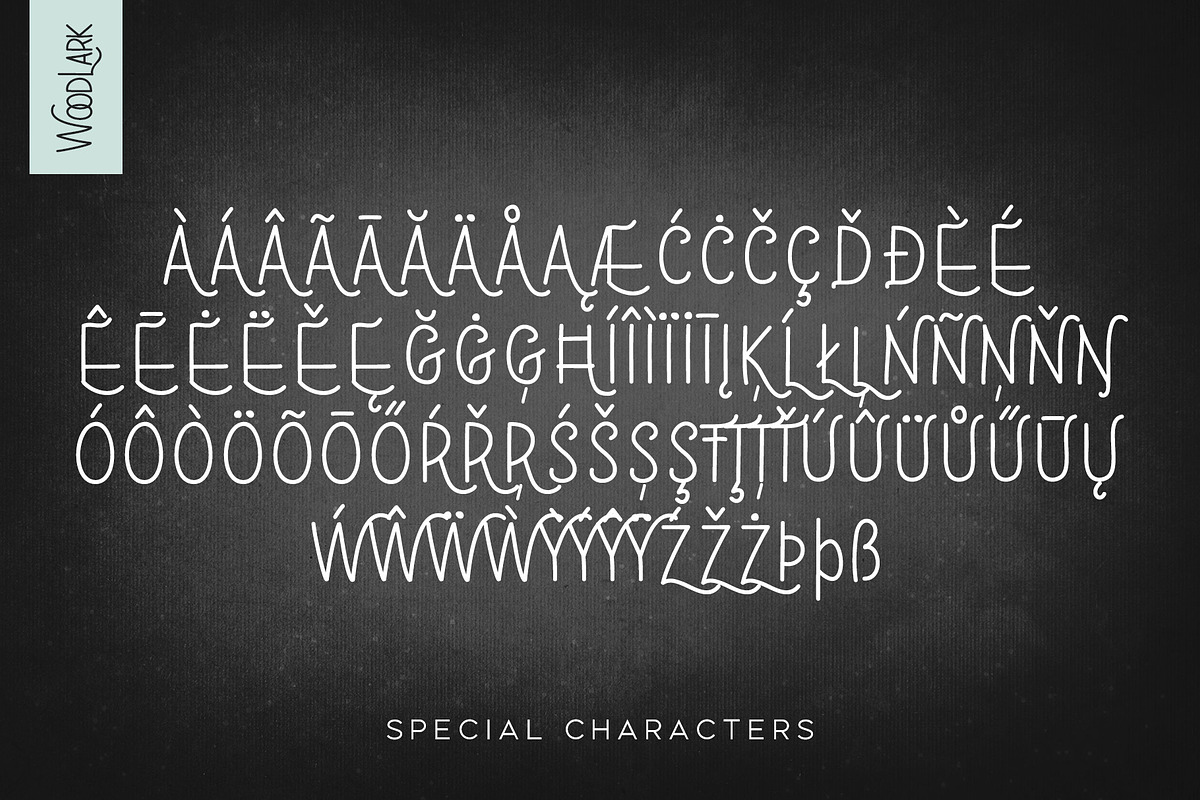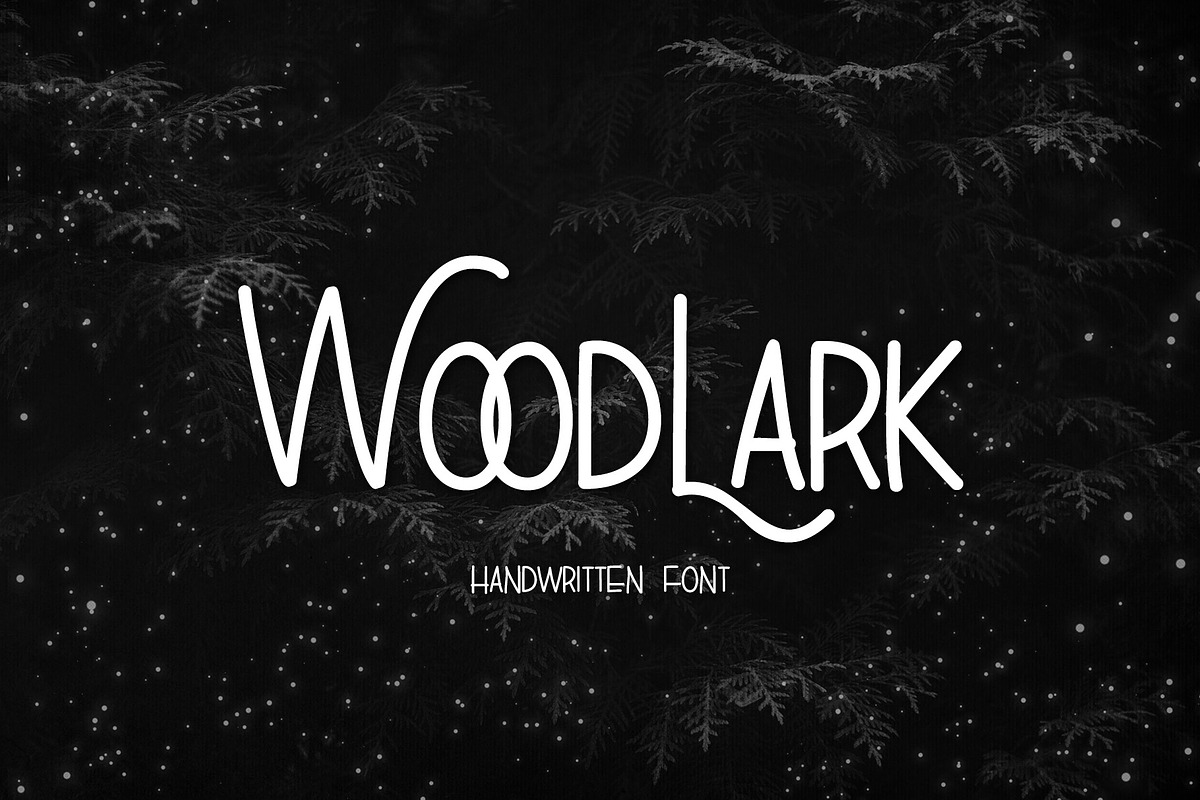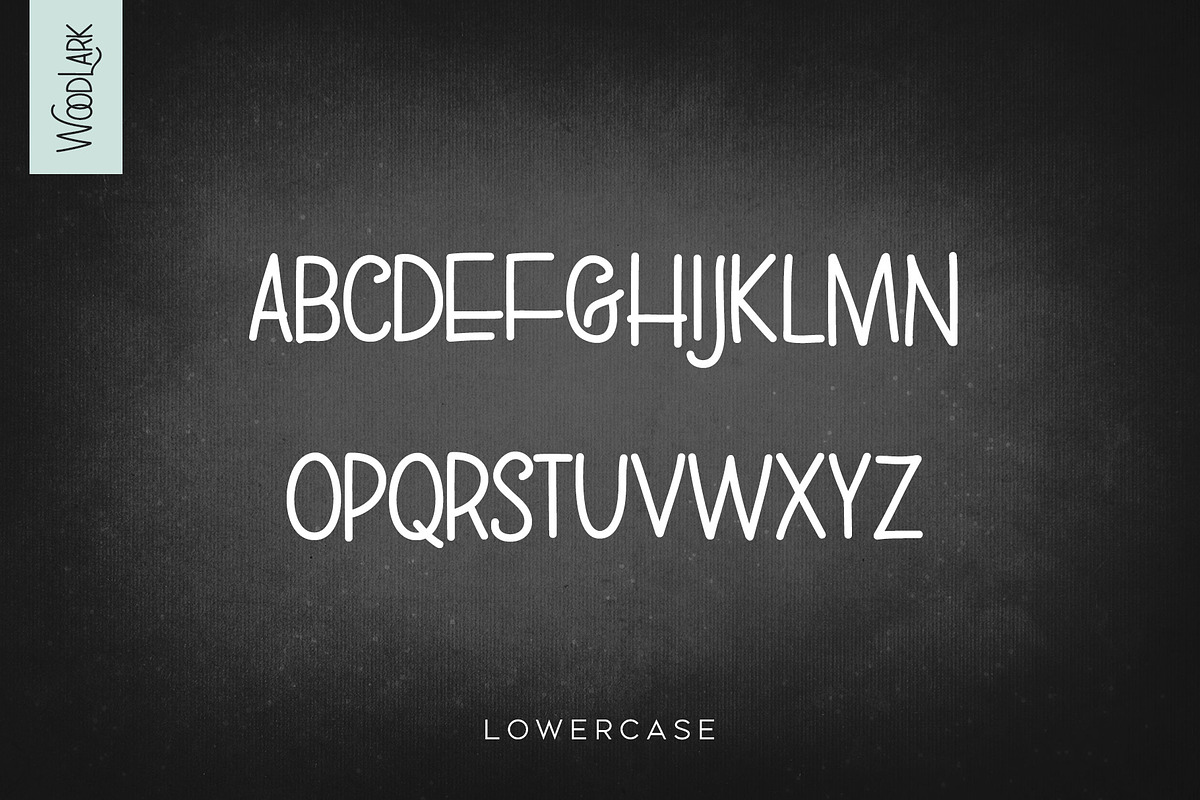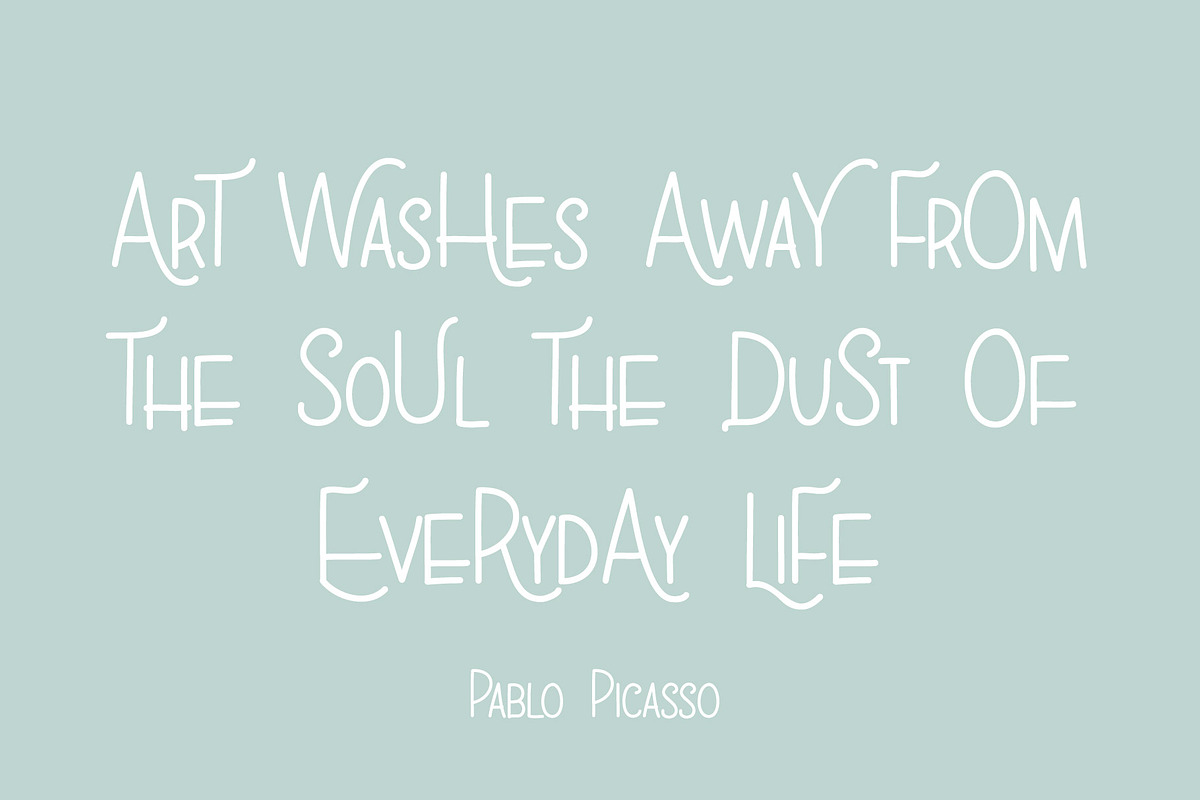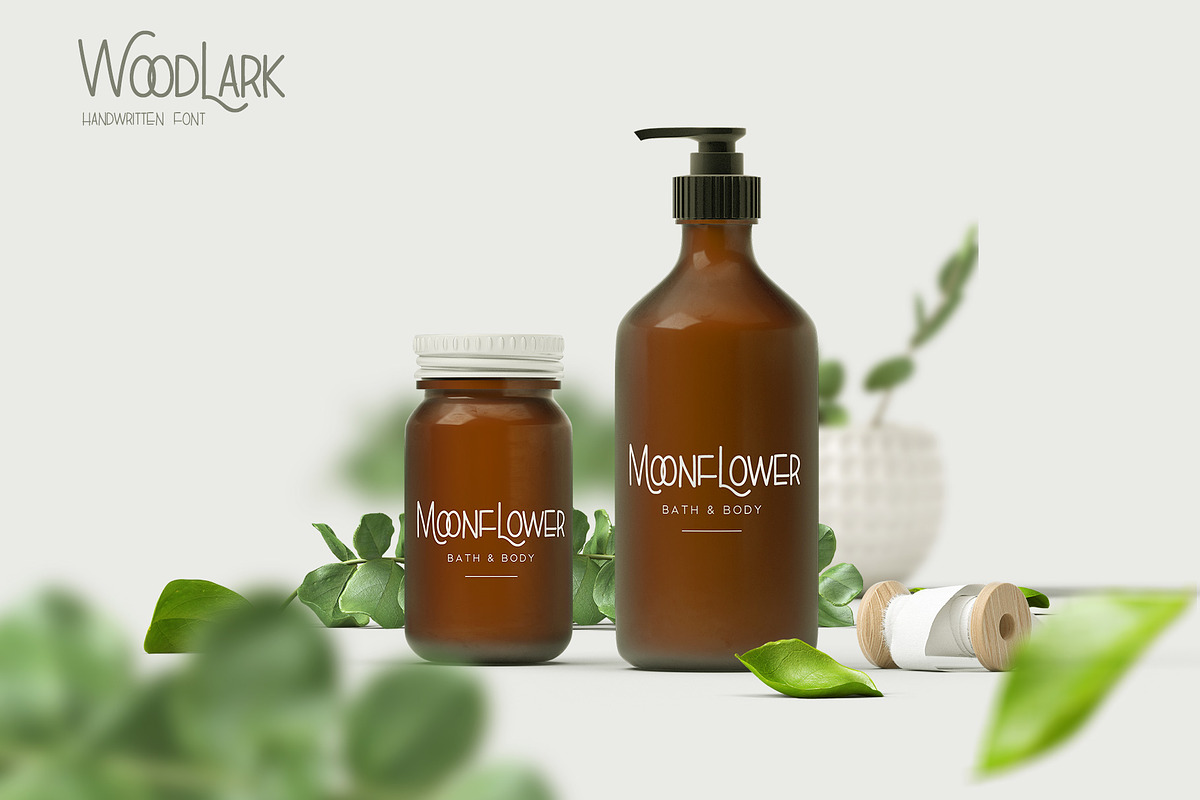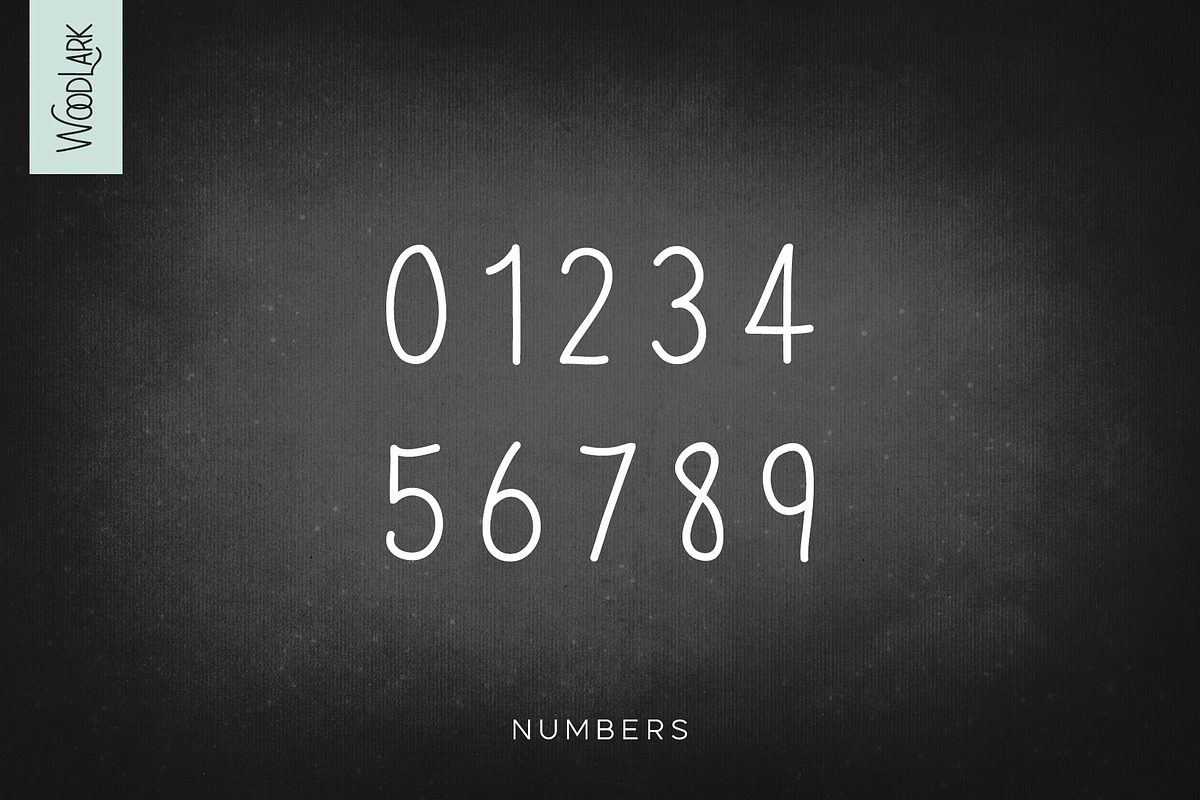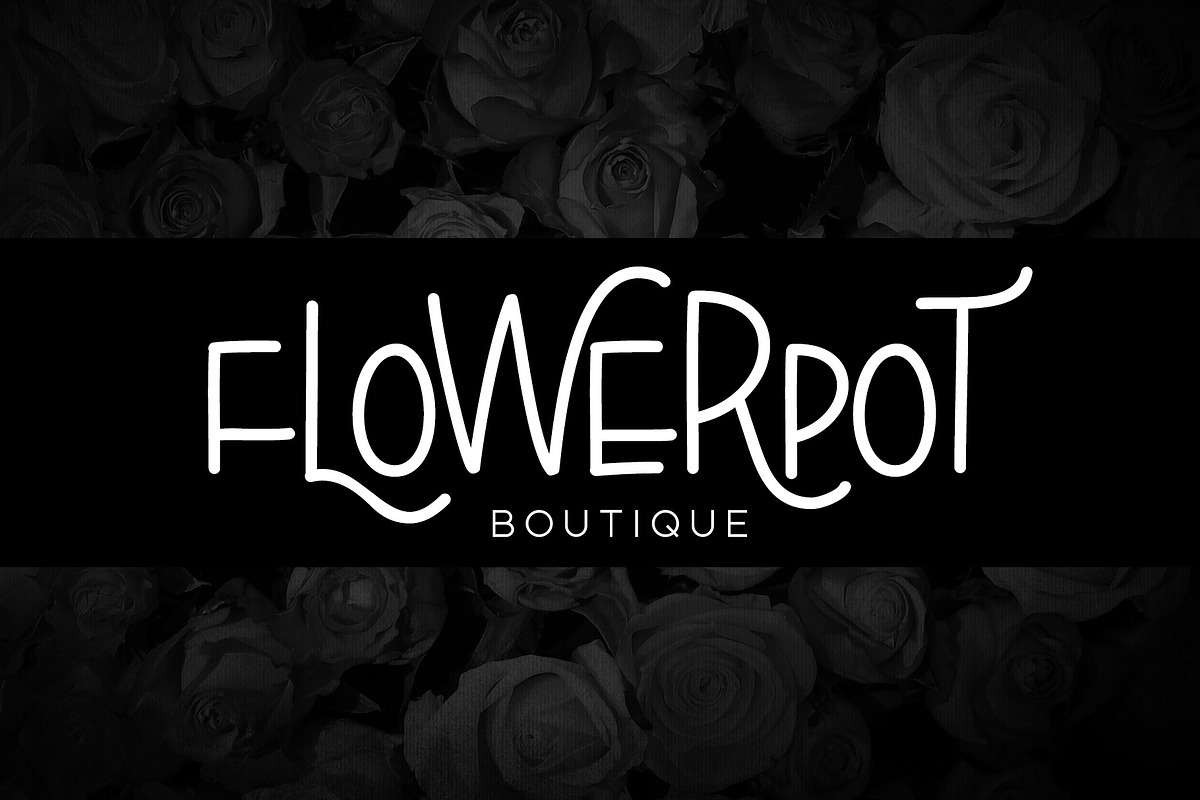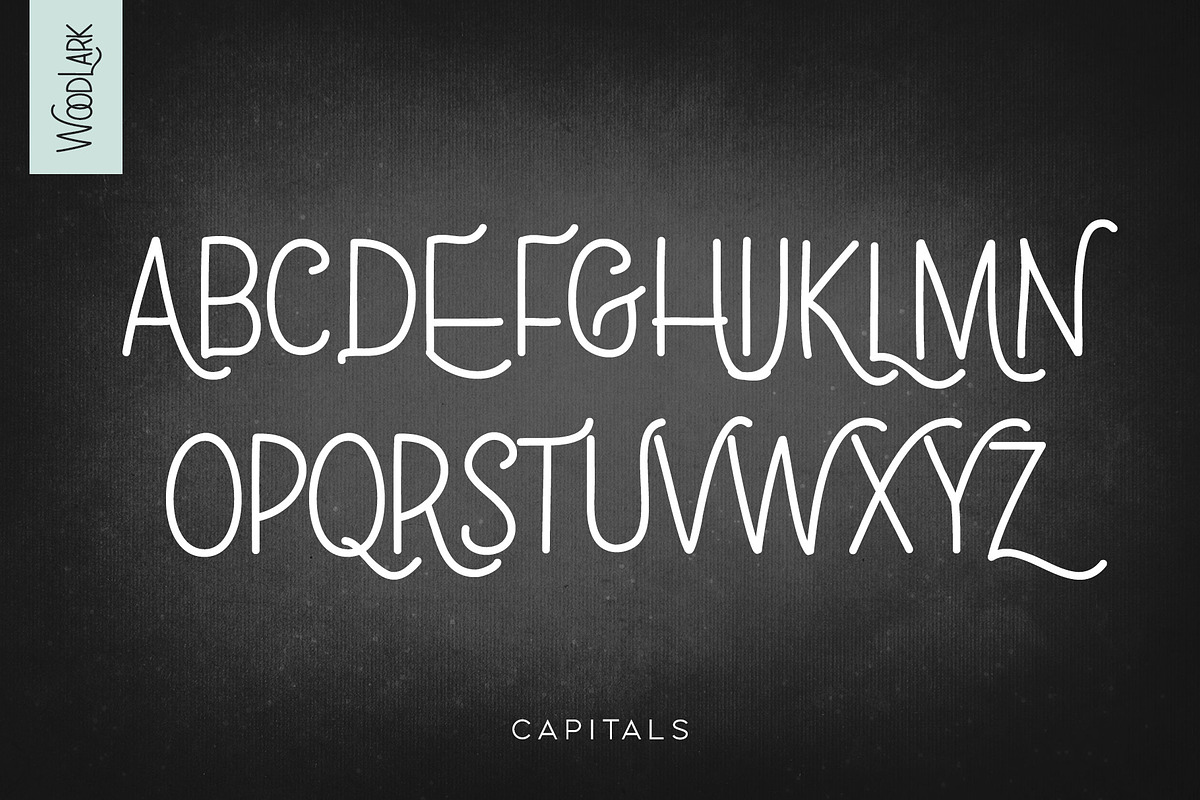
WoodLark Handwritten Font
Woodlark is a handwritten sans-serif font that is as fun as it is eclectic. It's simple yet whimsical with multi-lingual support. Great for adding a little magic to your logo, packaging, brochures, social media graphics, and more.
WoodLark Handwritten Font by Eclectic Anthology fits naturally into Branding, posters, packaging, typography.